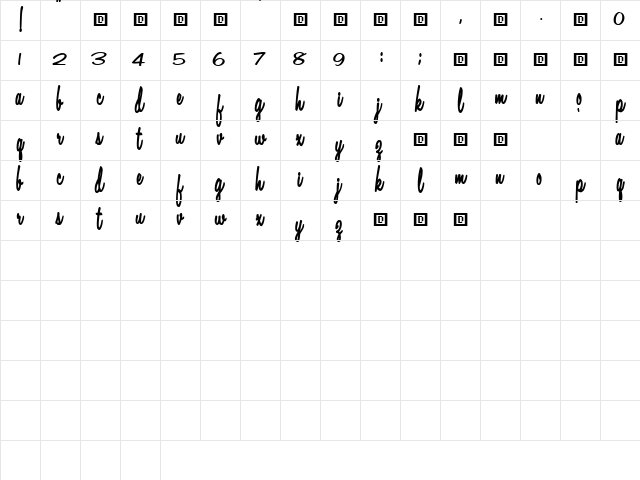
Meow Mix Regular Free Font
Meow Mix Regular
Design Context for Meow Mix
Meow Mix is a composed and adaptable typeface that performs quietly and consistently across a wide range of design contexts.